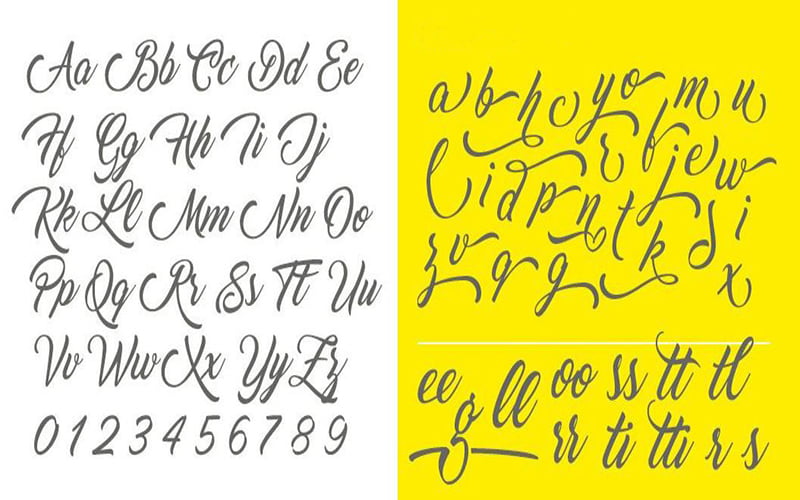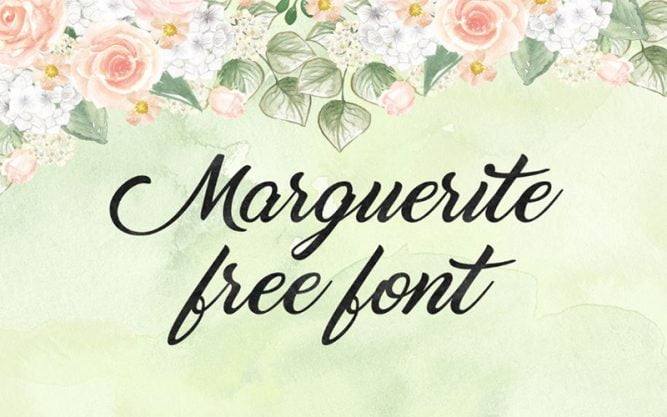
Marguerite Font is a soft and fresh script typeface with smooth curves and natural links as well as easy to read. This amazing typeface that is designed and published by Maelle Keita.
Due to its smooth appearance, you can use it for unique logos, movie posters, game titling, fancy cards, comic book, special quotes, product packaging, invitation, signature, wedding cards, and much more.
It has rounded edges and a strong structure that makes it ideal for printing and display use. Because when using a font stronger than this structure, it is not forgiven because of its thin texture.
Marguerite Font
| Font Name: | Marguerite Font |
| Style: | Calligraphy, Script, Typeface |
| Font Designer: | Stereo Type |
Each letter has a cursive touch, and when these letters are joined together, they form blocks of textual content with excellent texture, as well as attractive shapes and a beautiful look.
You can use it where you want a new design. It has a unique structure that we have not seen anywhere else. That’s why this beautiful font is included in the valuable font.